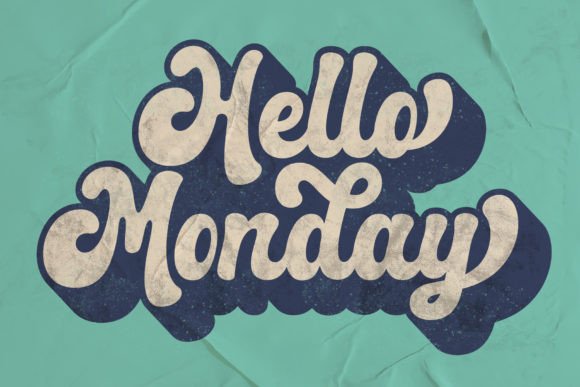
Sunday Rainbow is a thick-lettered script font. Perfect for titles, logos, and invitations, this font stands out with its bulky strokes and creative lettering. This font is PUA encoded which means you can access all glyphs and swashes freely!
Sunday Rainbow Font